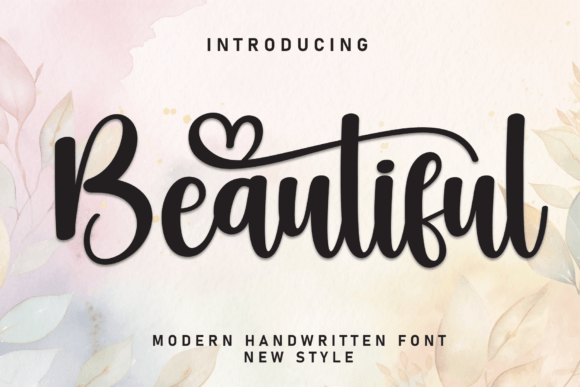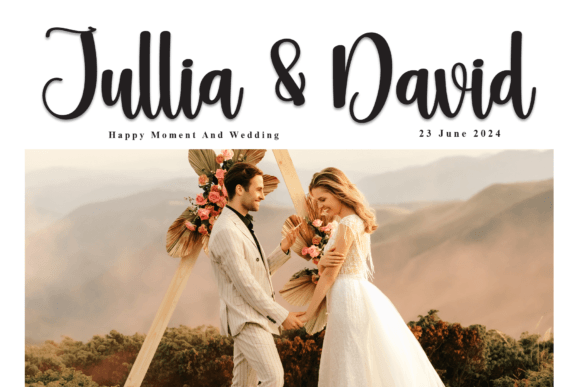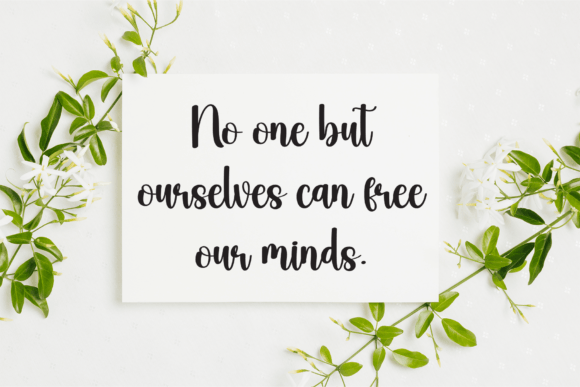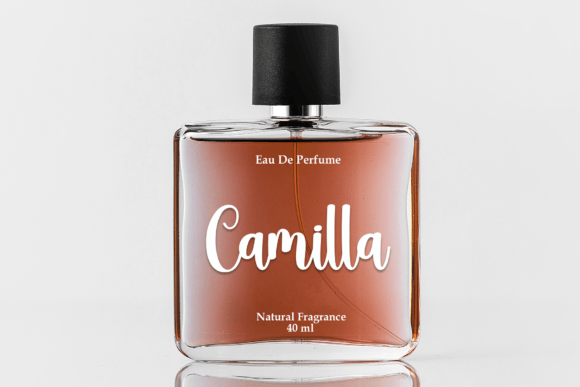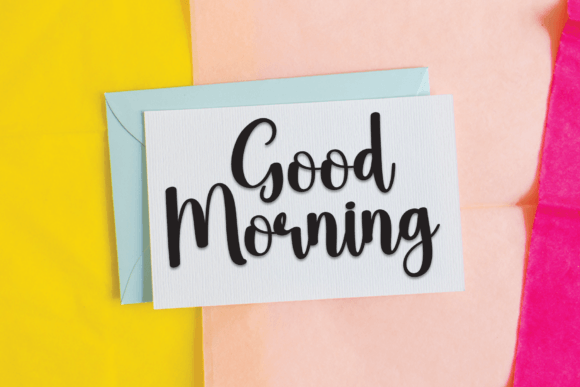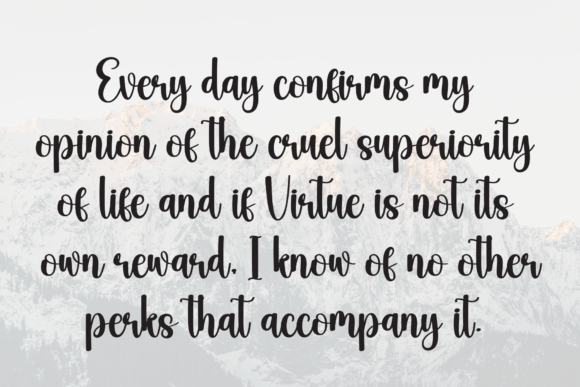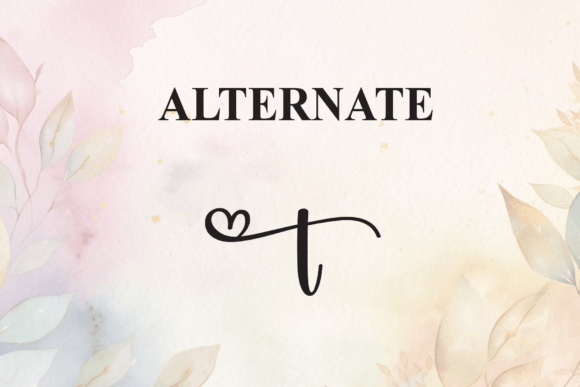
Unlock the Magic of Beautiful Font: Elevate Your Creative Projects
You’ve spent hours brainstorming the perfect concept, pouring your heart and soul into a design project. The excitement is palpable as you envision the finished product – until you realize the font just isn’t doing it justice. The letters feel flat, the style uninspired. That’s where Beautiful Font comes in – a game-changing script font designed to add an air of sophistication to any creative endeavor.
With Beautiful Font, the possibilities are endless. Whether you’re crafting a beautiful Instagram post or creating a stunning invitation for a special occasion, this enchanting font is sure to elevate your design to new heights. As a designer, you know the importance of having the right tools at your disposal. Beautiful Font is a valuable addition to your toolkit, providing a touch of elegance and whimsy to any project.
Beautiful Font Key Features
- Unique Characteristics: Beautiful Font features a unique blend of elegance and sophistication, with intricate details and subtle nuances that set it apart from other fonts.
Beautiful Font Review
Overall, I’m quite pleased with the “Beautiful Font” I’ve had the chance to work with. ✨ Here are a few things that really stand out:
- Unique style: The font’s distinctive curves and flourishes add a touch of elegance to any project.
- High legibility: Even at smaller sizes, the font remains easy to read, making it perfect for body text.
- Good font pairing potential: “Beautiful Font” pairs well with a variety of other fonts, allowing for a lot of creative freedom.
- Limited font weights: The font is only available in a few weights, which can make it difficult to achieve the desired level of emphasis.
- No italic or oblique styles: While this isn’t a deal-breaker, it can limit the font’s versatility in certain situations.
Overall, I’d say “Beautiful Font” is a solid choice for designers looking for a stylish, legible font. While it may not be perfect, its strengths outweigh its limitations, and I’d definitely consider using it again in the future.
Tips for Getting the Most Out of Beautiful Font
For best results, use Beautiful Font in combination with other design elements such as bold text, italics, and color. You can also experiment with different font sizes and line spacing to create visually appealing text.
Beautiful Font is ideal for creating eye-catching headings, titles, and logos. It’s also great for adding a touch of elegance to your resumes, business cards, and marketing materials.